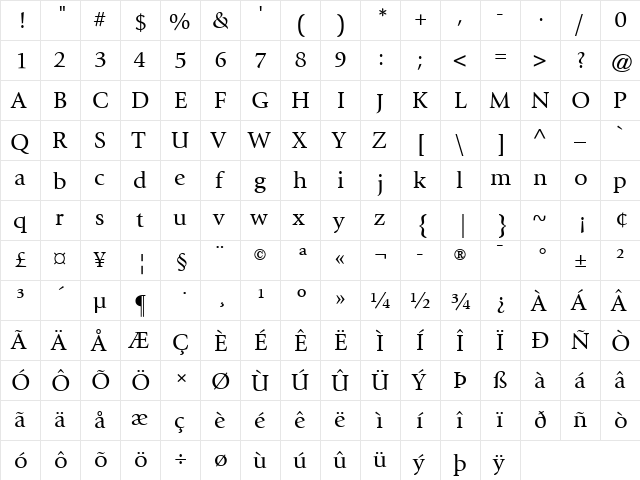
Giovanni LT Book Regular
Design Context for Giovanni LT Book Typeface
Giovanni LT Book is a composed and adaptable typeface that performs quietly and consistently across a wide range of design contexts. Its slender proportions lend an understated elegance to any composition.